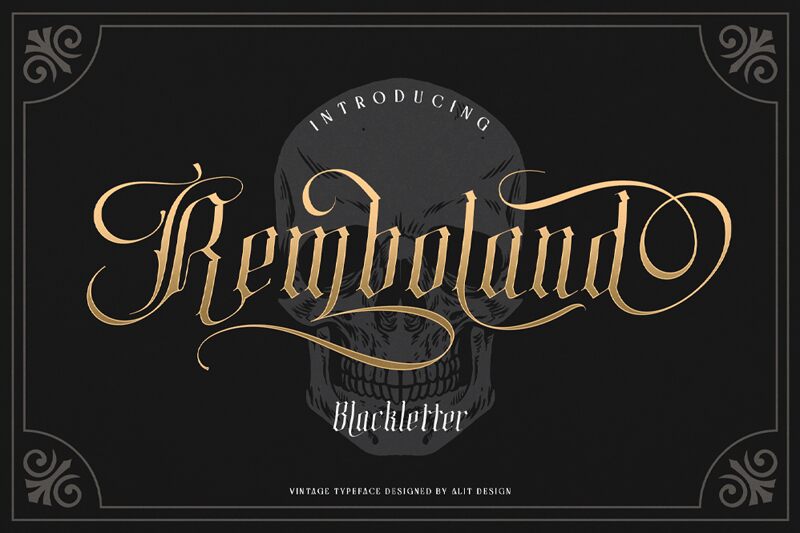
Remboland, designed by Alit Design, is a gothic semi-light font with an extra-condensed width that is perfect for creating a bold statement. This font has sharp edges and intricate details that make it suitable for projects such as logos, posters, and book covers. Its unique style can also be used to create horror or suspense themed designs. With its narrow width, Remboland can be utilized to fit more text into limited space while still maintaining clarity and legibility. Elevate your designs with the striking look of Remboland - the ultimate choice for those who want to stand out from the crowd.